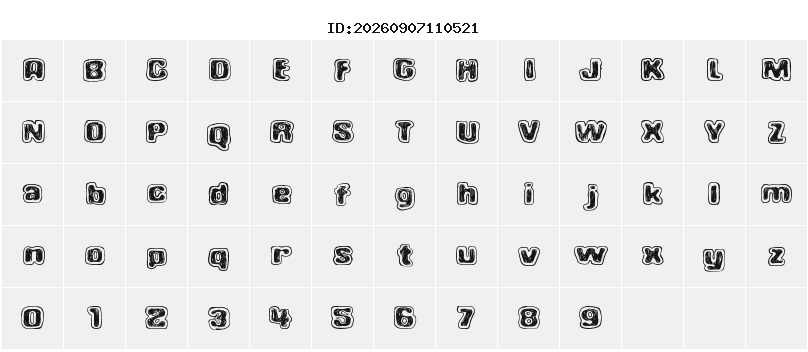
Union soap Preview
• Font Name: Union soap
• Font ID: Union soap:Version 1.00
• Full Font Name: Union soap
• Version: Version 1.00 March 30, 2014, initial release
• PostScript Name: Unionsoap
About Union soap.ttf
Union soap.ttf is a modern, elegant sans-serif font designed for ultimate readability and visual harmony. Perfect for branding, headlines, web design, and print materials.